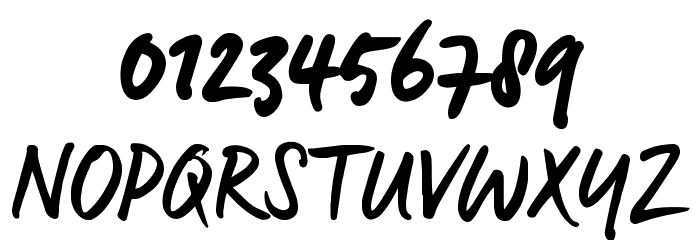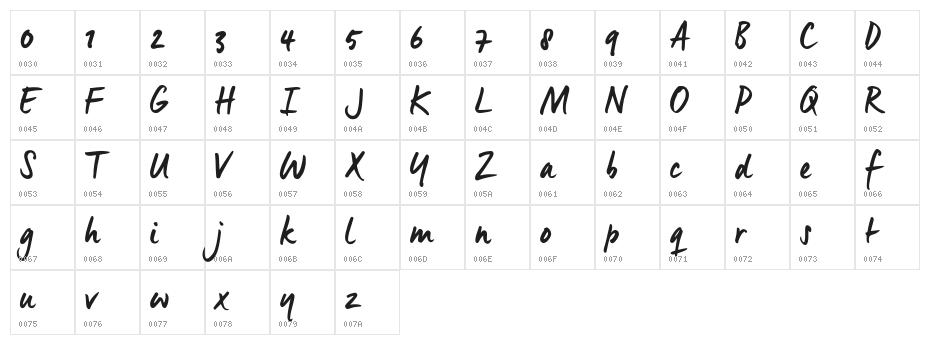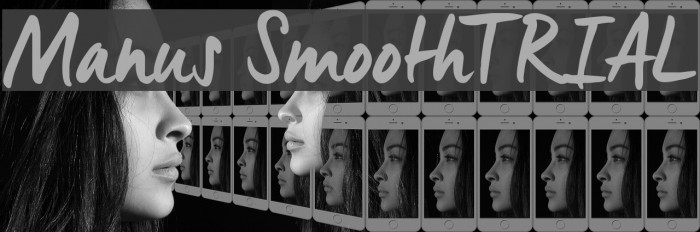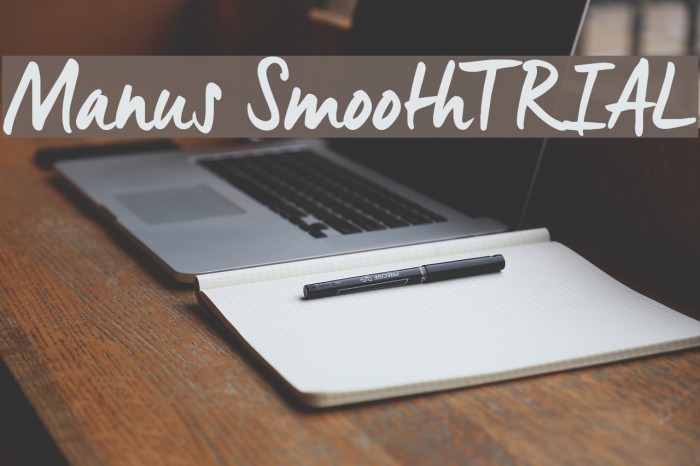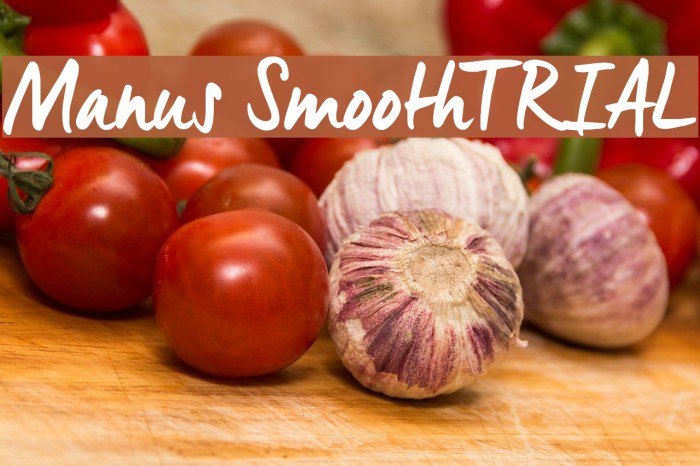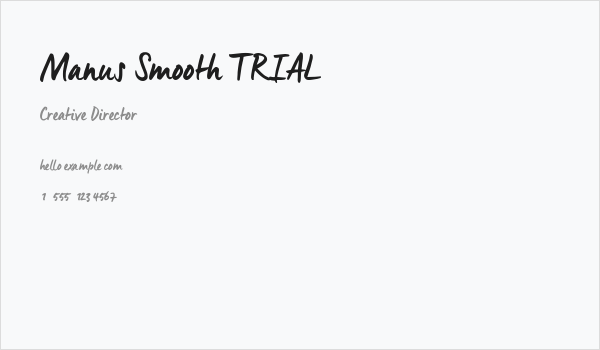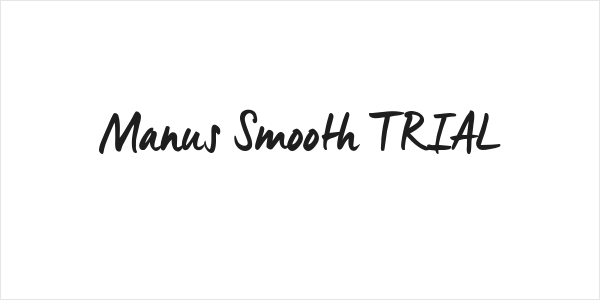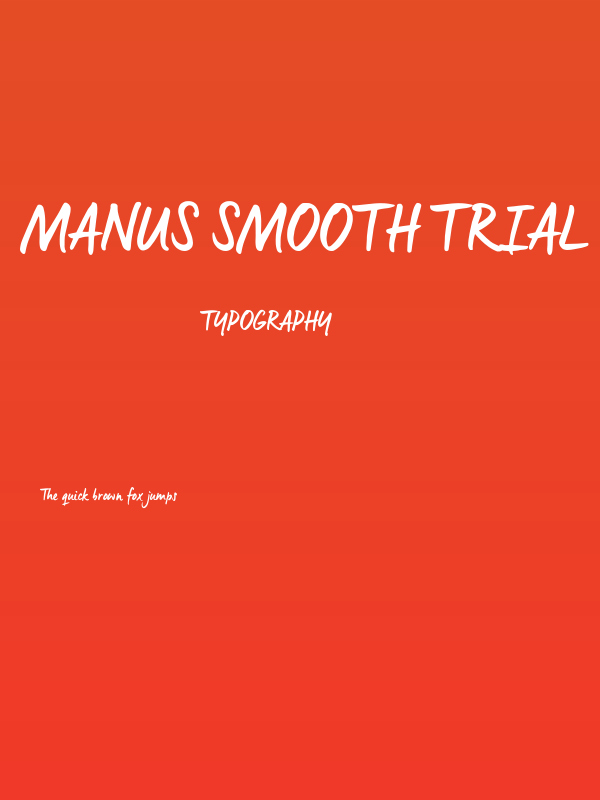
Manus Smooth_TRIAL Font
Manus Smooth_TRIAL Description
This font exudes a lively and dynamic handwritten style, characterized by its smooth, flowing strokes and slightly irregular letterforms. The uppercase letters are bold and assertive, while the lowercase letters maintain a consistent fluidity that adds a personal touch. The numerals are clear and legible, matching the overall energetic vibe of the font. Special characters are seamlessly integrated, maintaining the same playful and informal aesthetic. This font is perfect for projects that require a personal, human touch, such as invitations, greeting cards, or creative branding.
| Proposed Projects | Ideal for invitations, greeting cards, creative branding, and personal projects. |